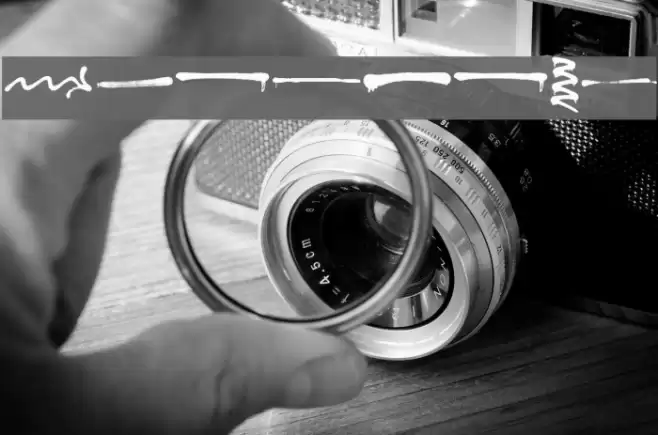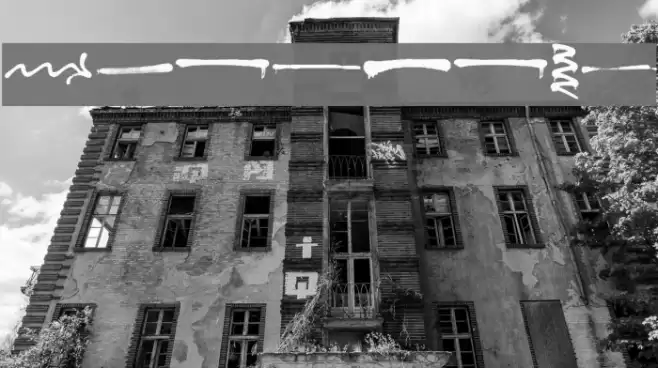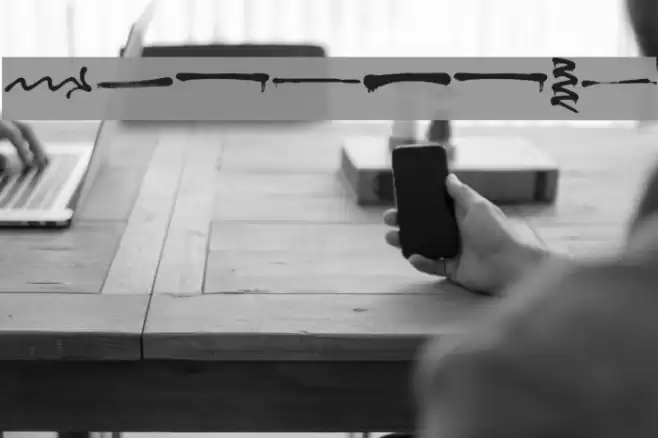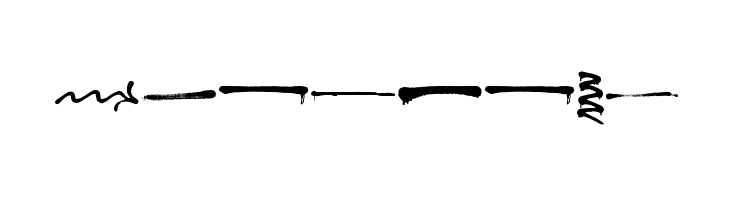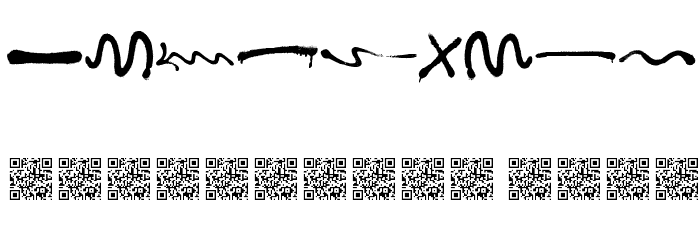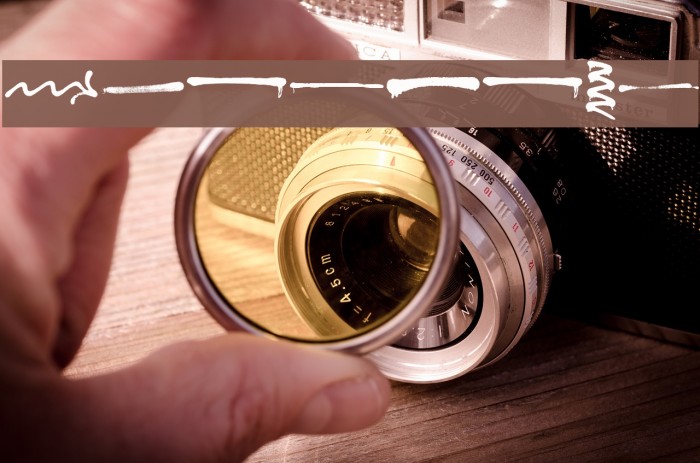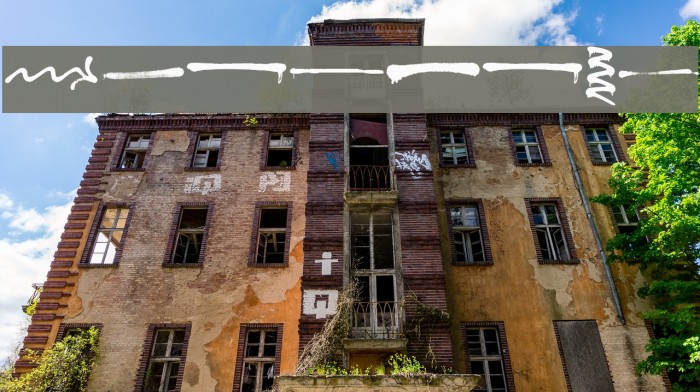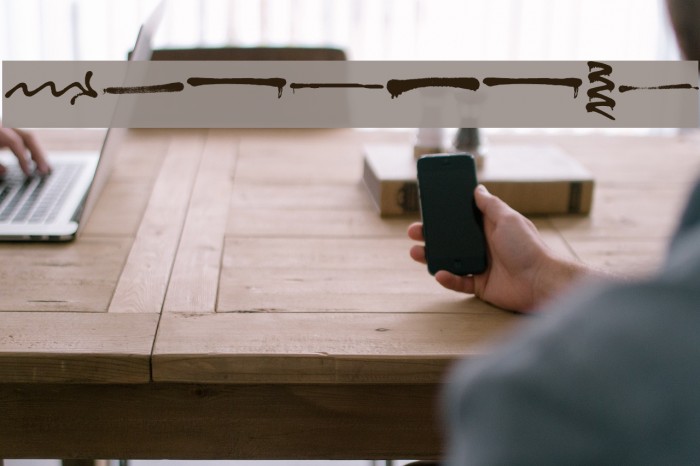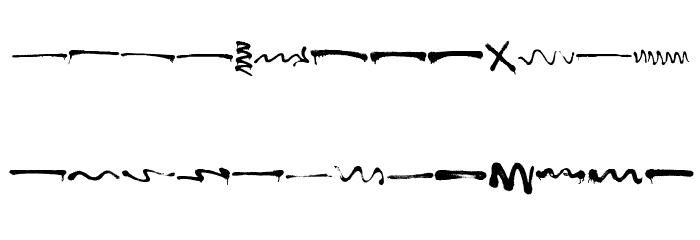
funlines Font
funlines Description
A playful, hand-drawn decorative font featuring irregular, wavy, and squiggly lines for each character, with highly variable stroke thickness and whimsical forms.
A quirky, hand-drawn decorative font with wavy and irregular lines from Dingbats fonts.
- Proposed Projects: Children's books, party invitations, playful branding, posters, creative art projects.
- Overall Style: Decorative, Playful, Whimsical
- Use Case: Headlines, Posters, Creative Titles